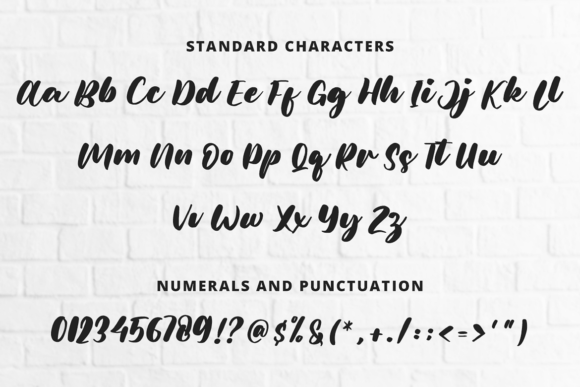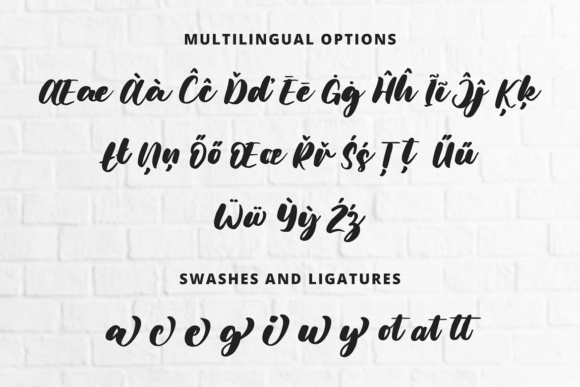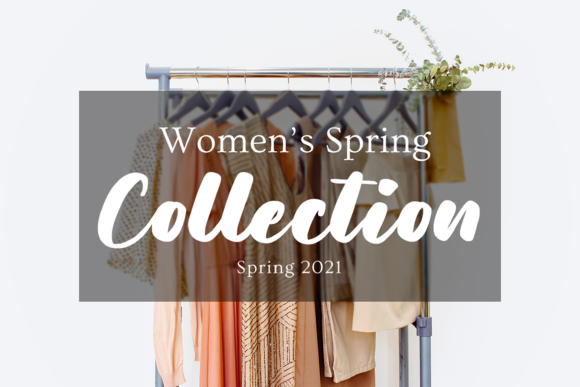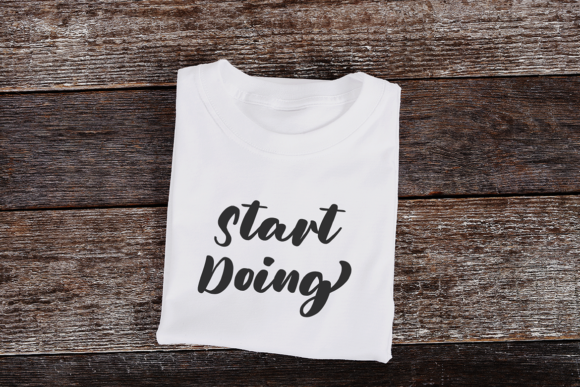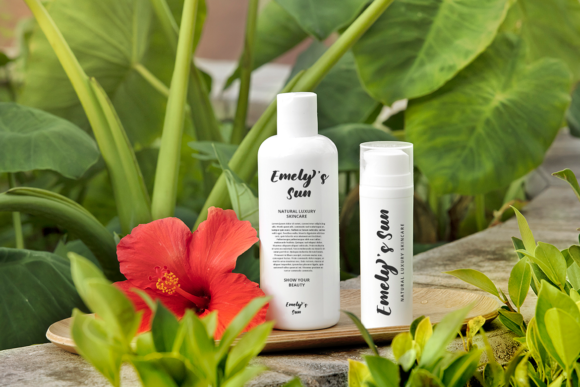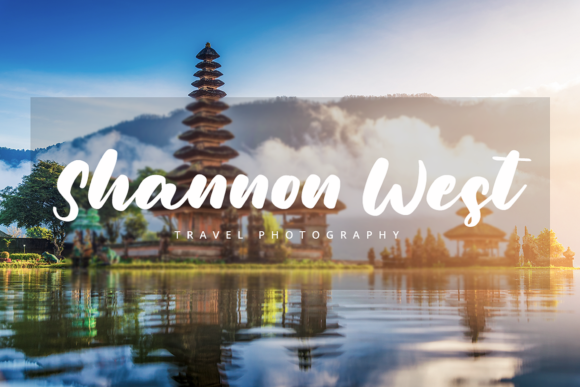
Introducing Birgitte Font: The Sweet and Brushed Handwritten Font for Your Creative Projects
Are you looking for a font that can add a touch of elegance and sweetness to your designs? Look no further than Birgitte Font, a beautiful handwritten font that is perfect for a variety of creative projects. In this article, we’ll take a closer look at Birgitte Font, its features, and how you can use it to elevate your designs.
What is Birgitte Font?
Birgitte Font is a sweet and brushed handwritten font that is designed to give your designs a personal and unique touch. It is a versatile font that can be used for a wide range of projects, including wedding invitations, thank you cards, quotes, greeting cards, logos, business cards, and more.
Key Features of Birgitte Font
Birgitte Font has several key features that make it a great choice for designers and crafters. Some of its notable features include:
- Sweet and Brushed Handwritten Style: Birgitte Font has a beautiful, handwritten style that is perfect for adding a personal touch to your designs.
- Versatile and Flexible: Birgitte Font can be used for a wide range of projects, from wedding invitations to business cards.
- Elegant and Sophisticated: The font has an elegant and sophisticated look that is perfect for designs that require a touch of luxury.
How to Use Birgitte Font in Your Designs
Birgitte Font is easy to use and can be incorporated into your designs in a variety of ways. Here are a few ideas to get you started:
- Wedding Invitations: Use Birgitte Font to create beautiful and elegant wedding invitations that will set the tone for your special day.
- Thank You Cards: Add a personal touch to your thank you cards with Birgitte Font, perfect for expressing gratitude to friends and family.
- Quotes and Greeting Cards: Use Birgitte Font to create inspiring quotes and greeting cards that are perfect for social media, blogs, or print.
- Logos and Business Cards: Birgitte Font can also be used to create elegant logos and business cards that will help you stand out from the competition.
Tips for Getting the Most Out of Birgitte Font
Here are a few tips for getting the most out of Birgitte Font:
- Experiment with Different Sizes and Colors: Try out different sizes and colors to see how Birgitte Font looks in different contexts.
- Pair with Other Fonts: Birgitte Font pairs well with other fonts, so don’t be afraid to experiment with different combinations.
- Use for Digital and Print Projects: Birgitte Font is versatile and can be used for both digital and print projects.
In conclusion, Birgitte Font is a beautiful and versatile handwritten font that is perfect for designers and crafters looking to add a touch of elegance and sweetness to their designs. With its sweet and brushed style, Birgitte Font is sure to elevate your designs and help you create something truly special.
Whether you’re working on a wedding invitation, thank you card, or business card, Birgitte Font is a great choice. So why not give it a try and see how it can enhance your designs?